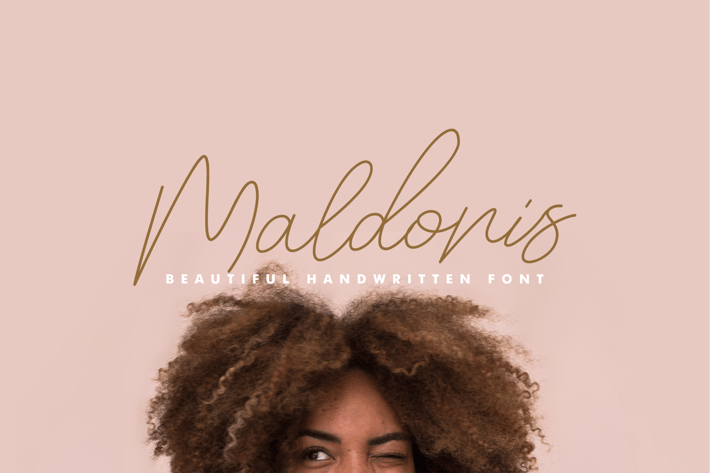
Maldonis Monoline Script Font
Maldonis Monoline Handwritten Font - a new modern & fresh script with a handwritten and script style make this font looks elegant, natural, stylish and perfect for any awesome projects that need handwriting taste.
Maldnois would perfect for photography, watermark, social media posts, advertisements, logos & branding, invitation, product designs, label, stationery, wedding designs, product packaging, special events or anything that need handwriting taste.